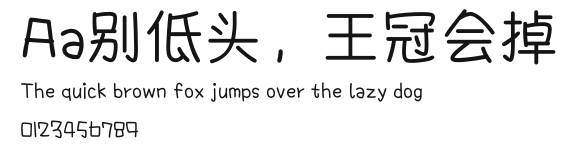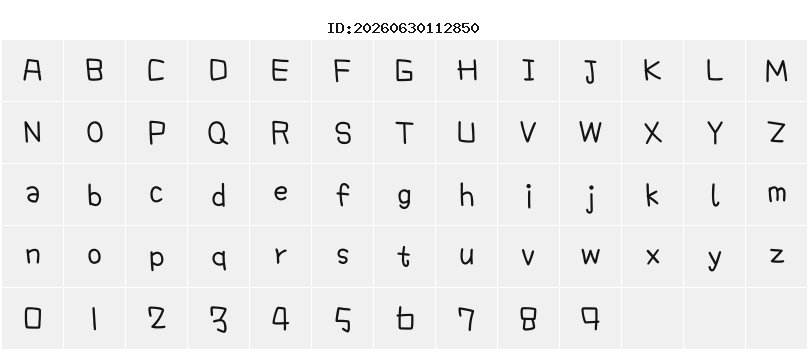
Aa别低头,王冠会掉 Preview
• Font Name: Aa别低头,王冠会掉
• Designer: Aa
• Manufacturer: 翰美互通(厦门)科技有限公司
• Description: AaBieditouwanguanhuidiao is a fantastic font with excellent features designed for user interfaces and electronic communications.
About Aa别低头,王冠会掉.ttf
Aa别低头,王冠会掉.ttf is a modern, elegant sans-serif font designed for ultimate readability and visual harmony. Perfect for branding, headlines, web design, and print materials.